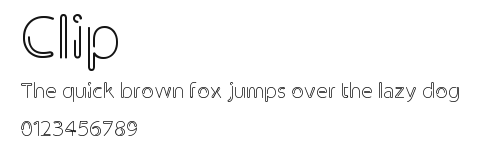
• Font Name: Clip
• Designer: Argüello Martín
Clip.ttf is a modern, elegant sans-serif font designed for ultimate readability and visual harmony. Perfect for branding, headlines, web design, and print materials.